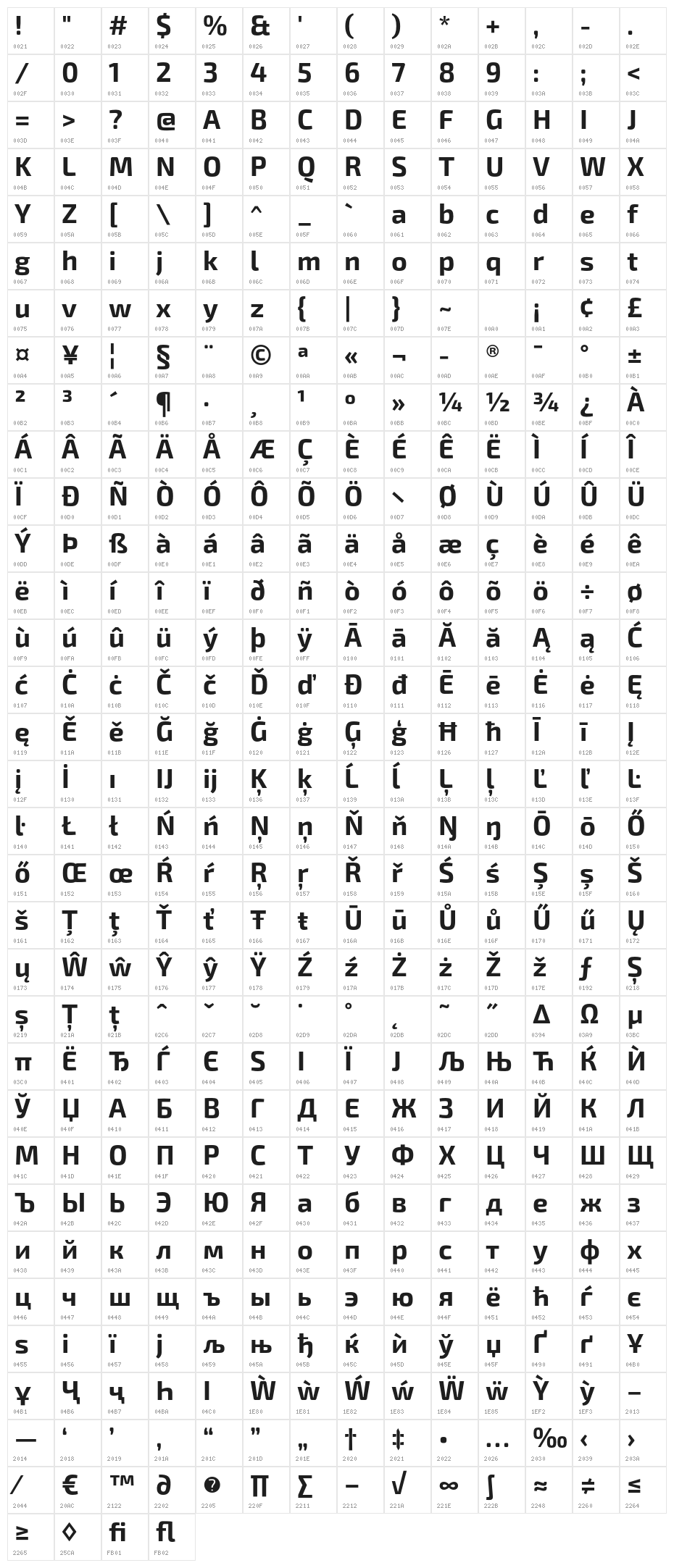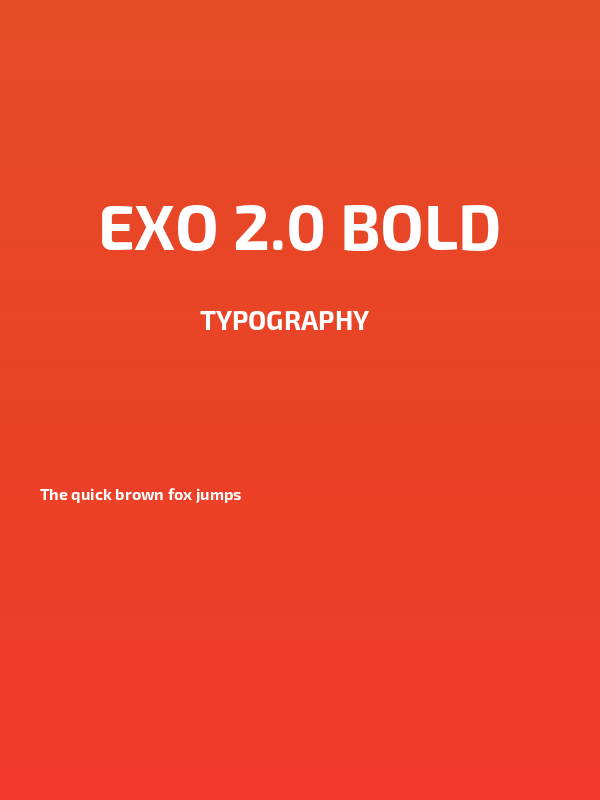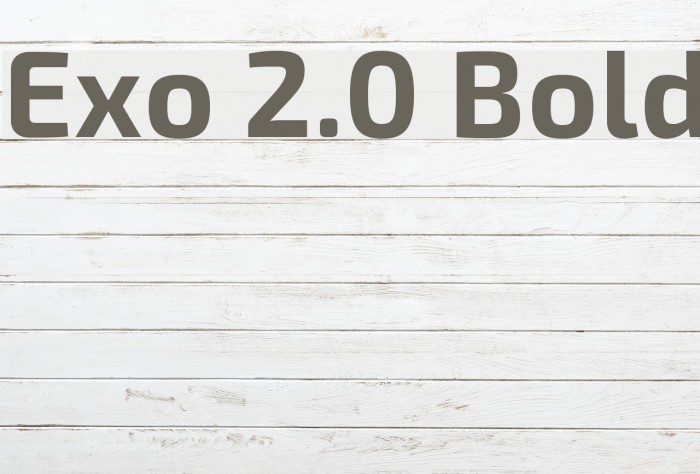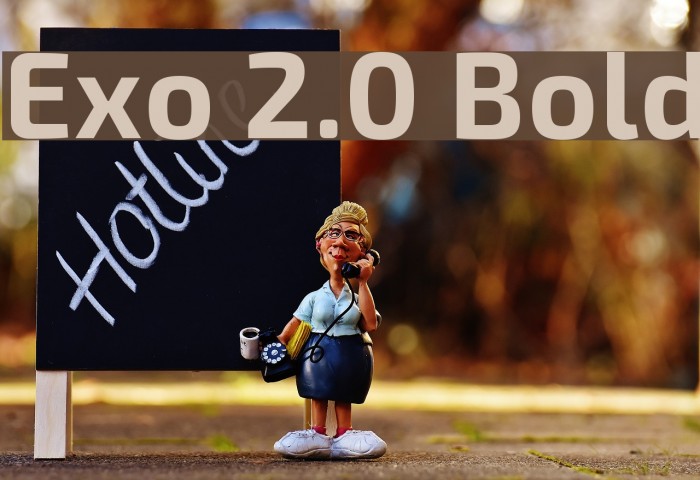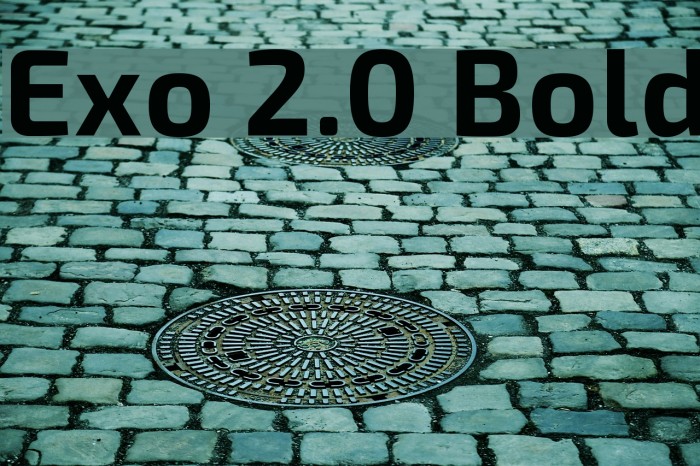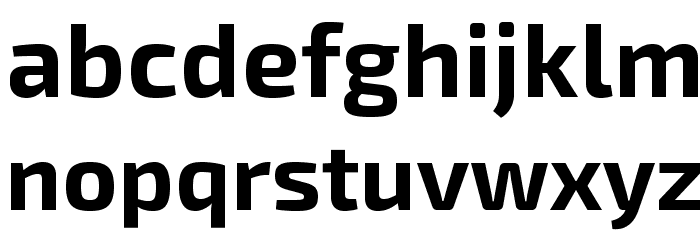
Exo 2.0 Bold Font
Exo 2.0 Bold Description
This font features a modern, geometric sans-serif design with a bold weight. It exhibits clean lines and a slightly condensed width, making it highly legible and suitable for various digital and print applications. The characters are well-balanced with consistent stroke thickness, providing a uniform appearance. The uppercase letters are strong and assertive, while the lowercase letters maintain a friendly and approachable feel. Numerals are clear and distinct, ensuring readability in data-heavy contexts. Special characters are well-integrated, supporting a wide range of uses.
| Use Case | Headlines, Logos, Digital interfaces |
| Proposed Projects | Ideal for branding, headlines, digital interfaces, and advertising materials. |